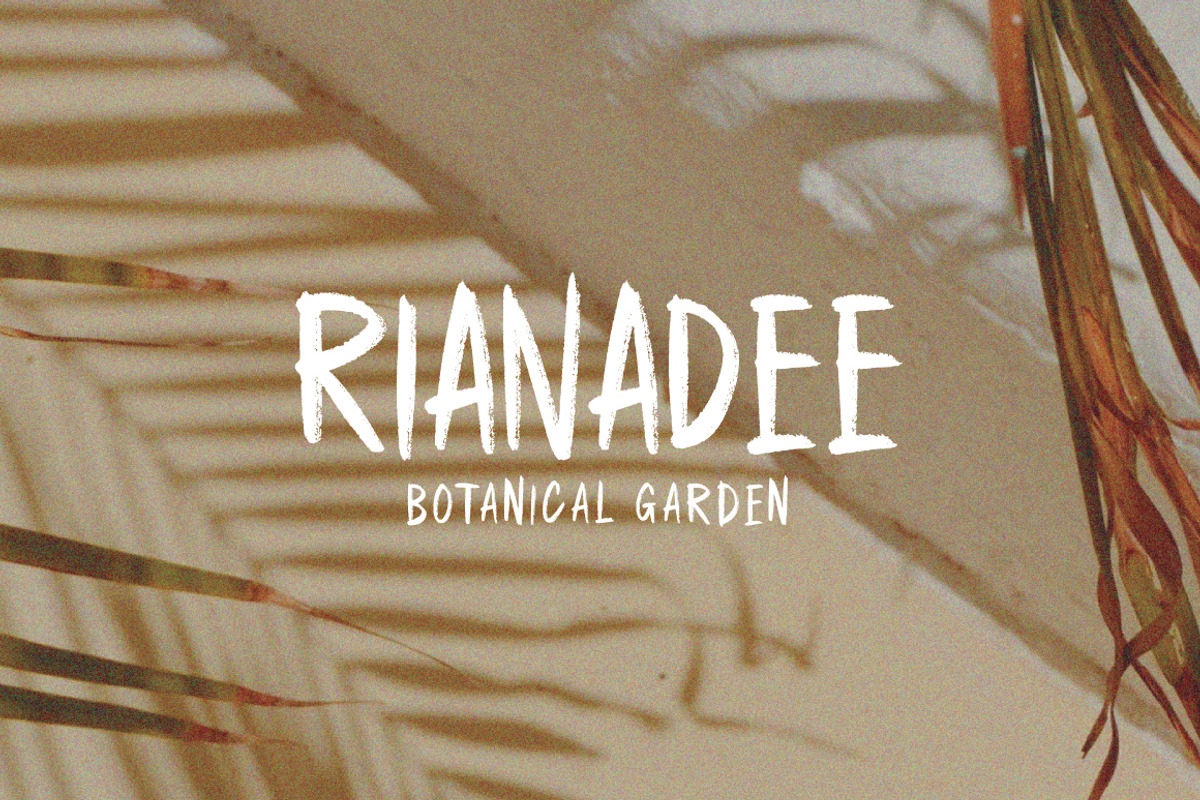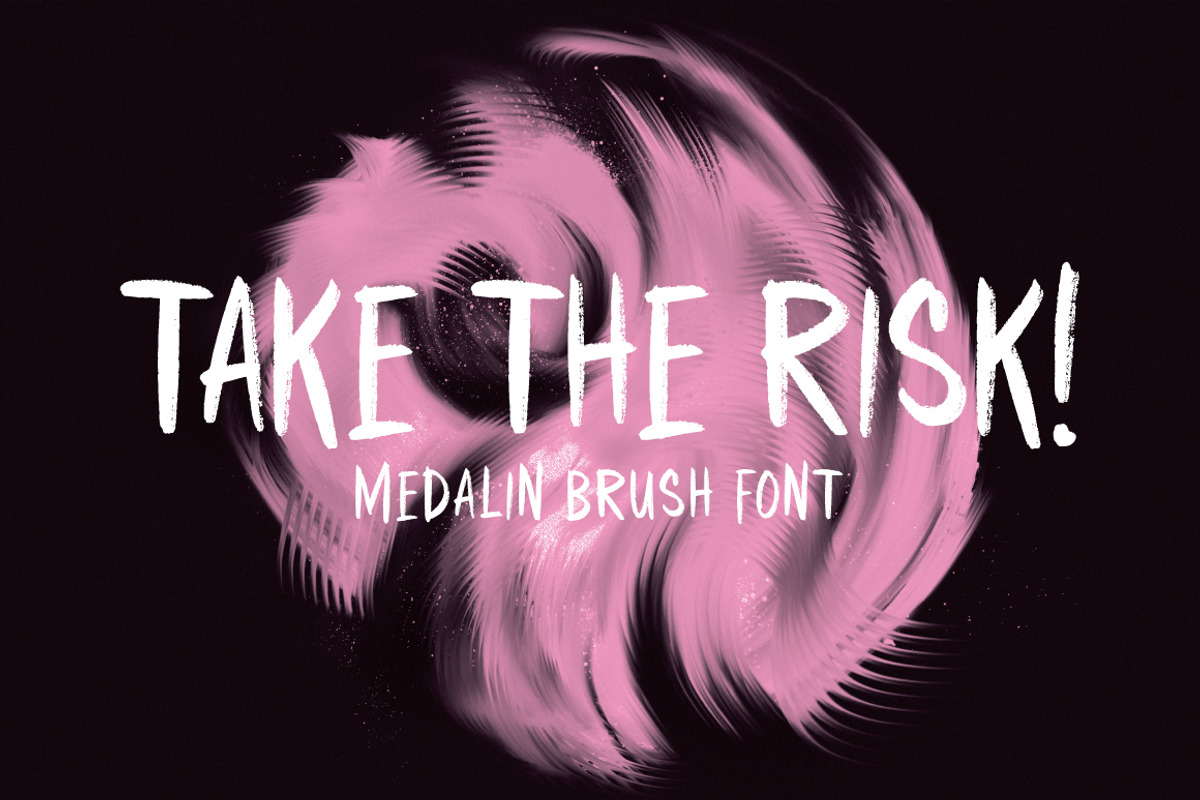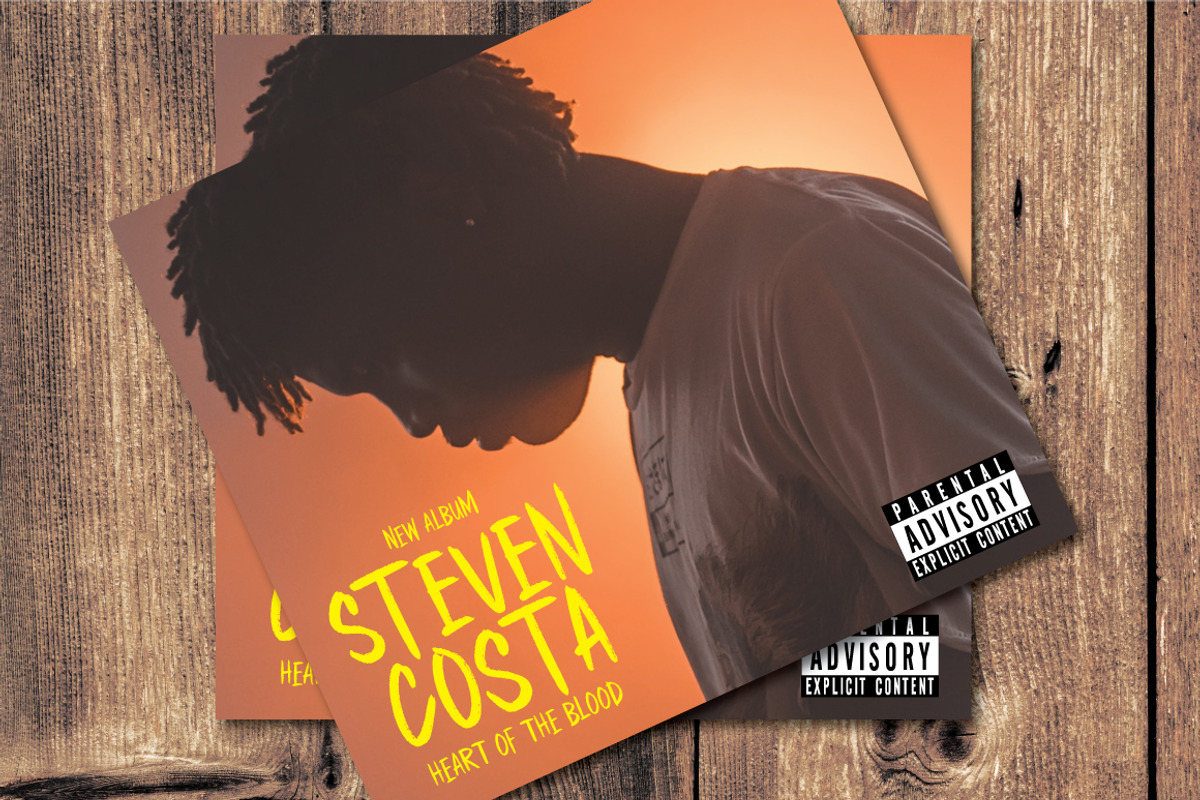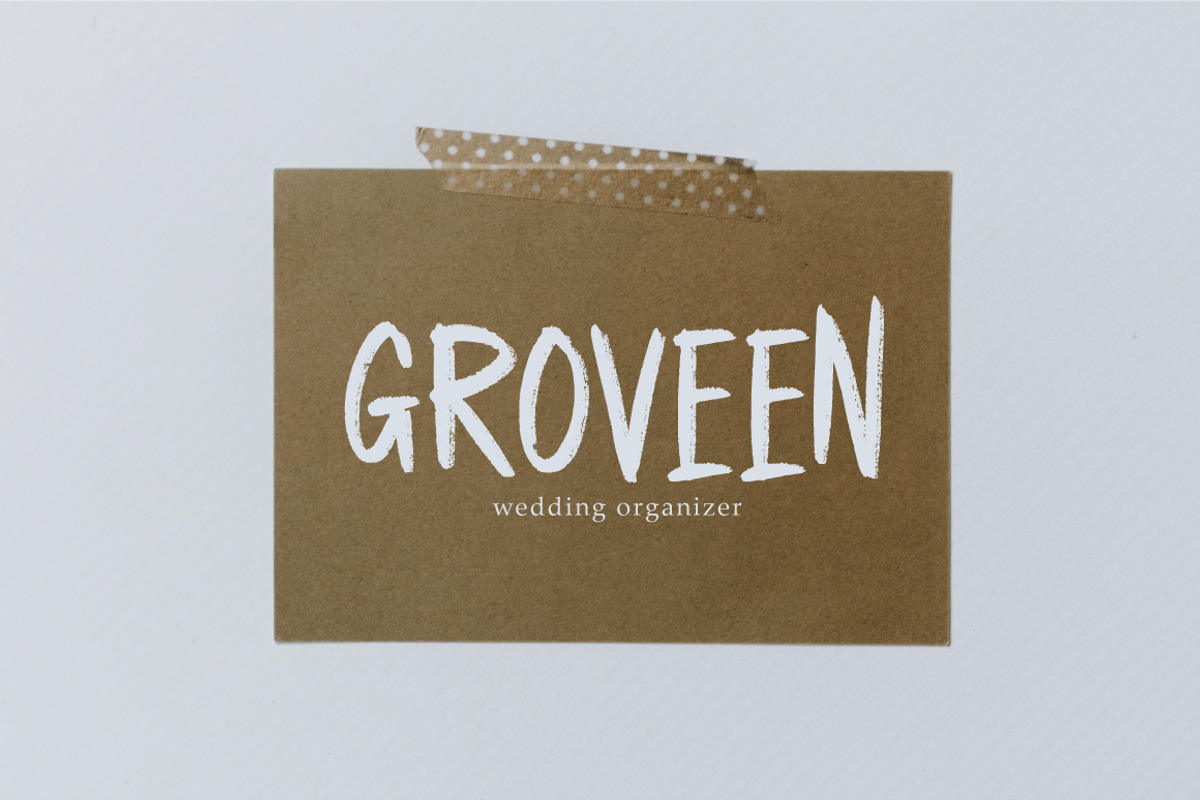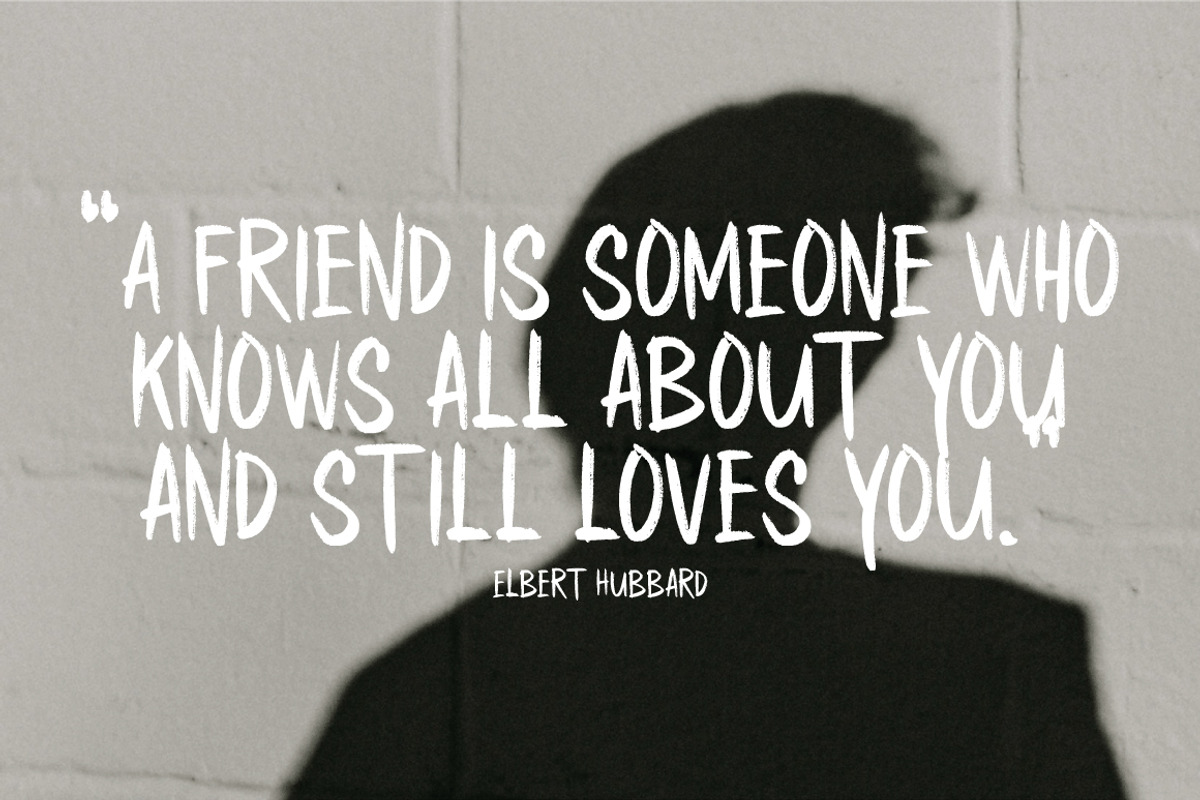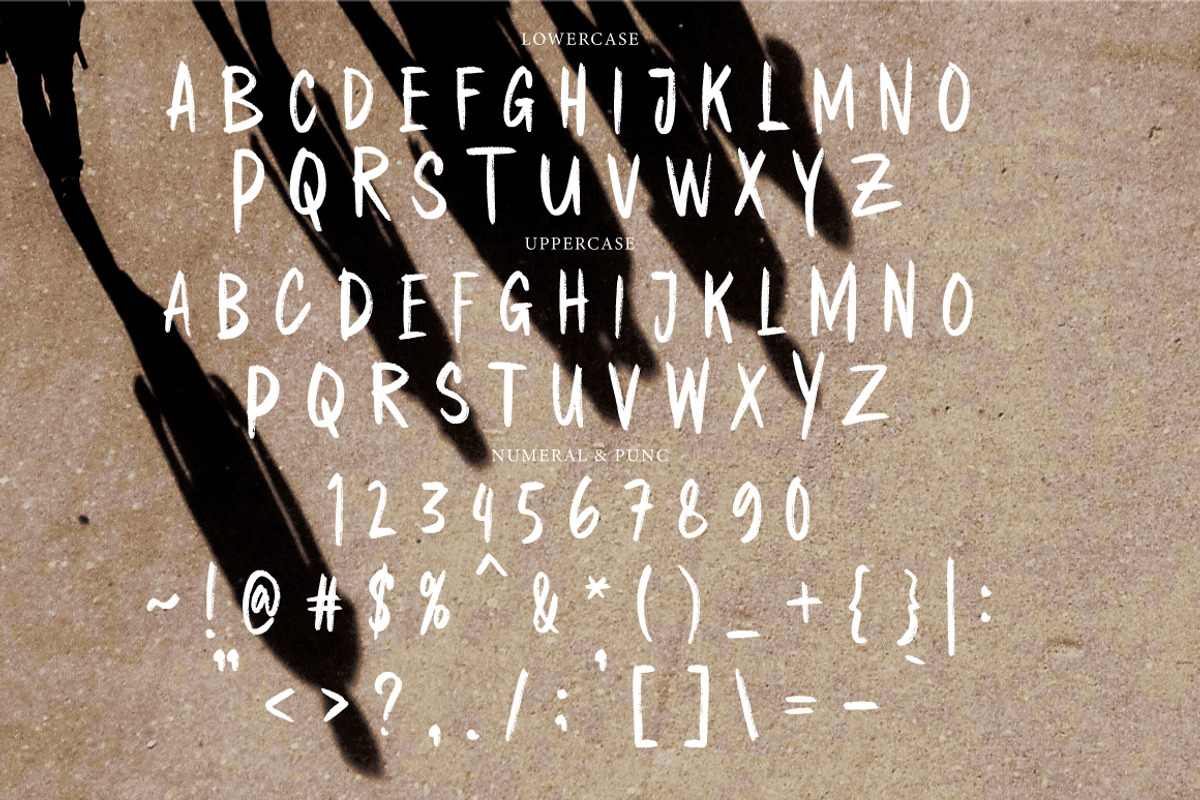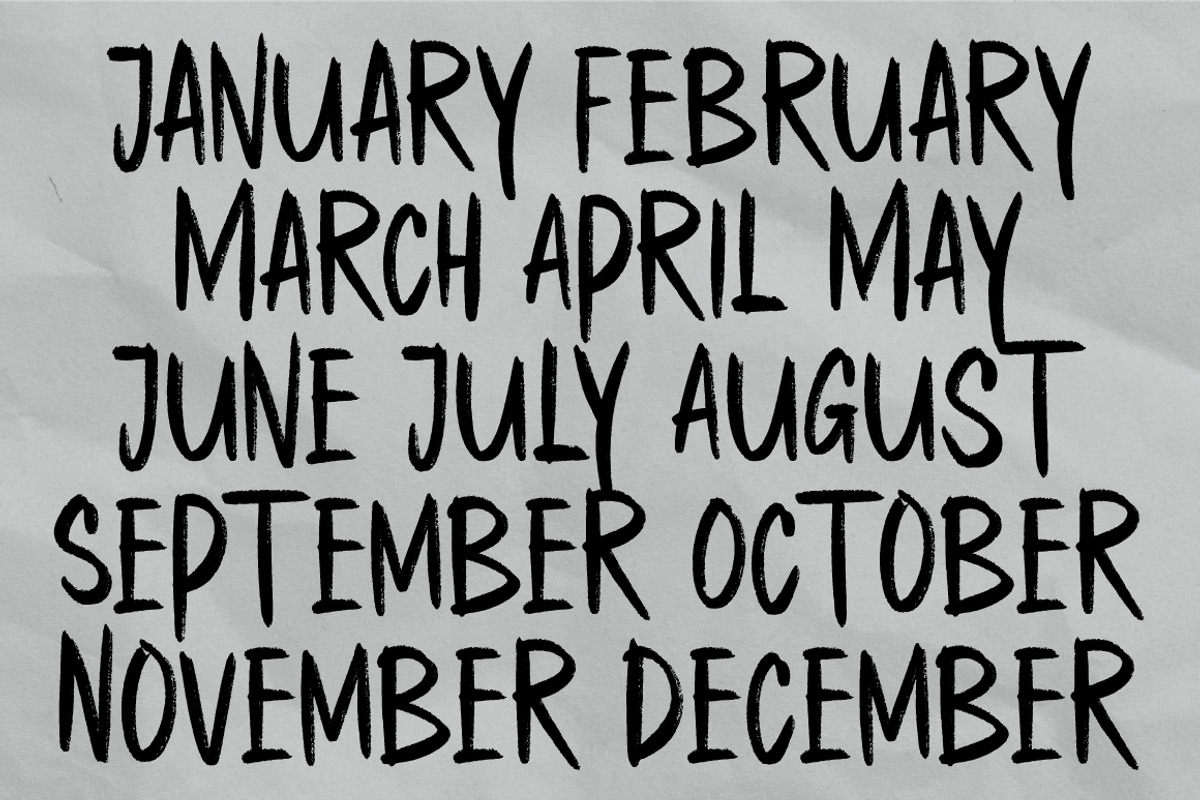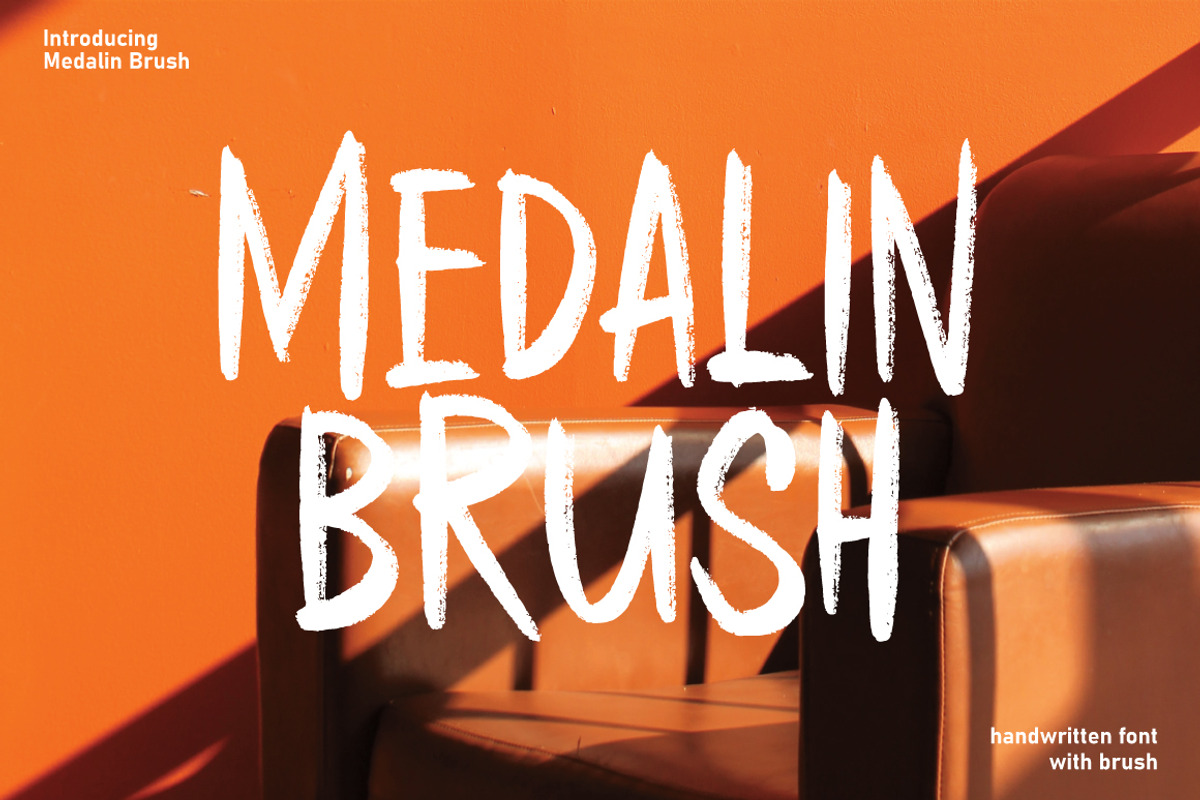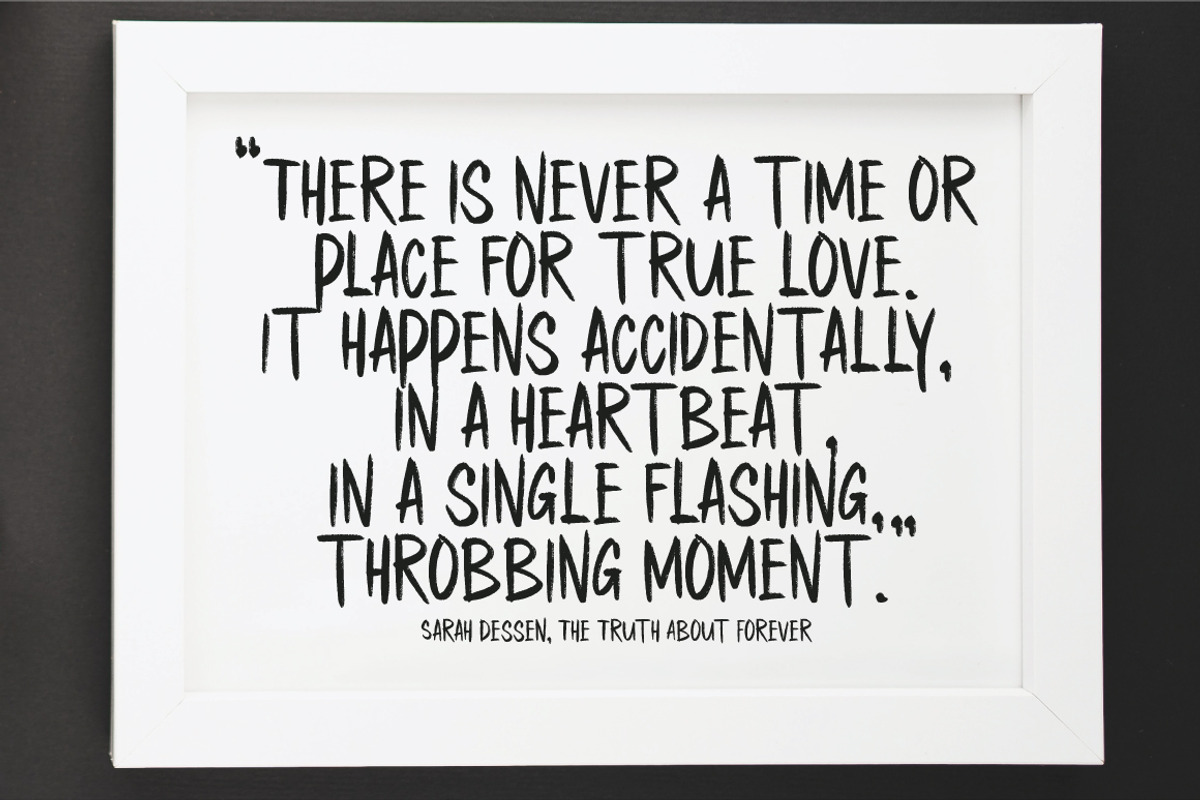
Medalin - Brush Font
Medalin Brush with a handmade Signature style, decorative characters and a dancing baseline! So beautiful on invitation like greeting cards, branding materials, business cards, quotes, posters, and more!!
- include Basic Latin A-Z and a-z
- Stylistic Set
- Glyphs 150+